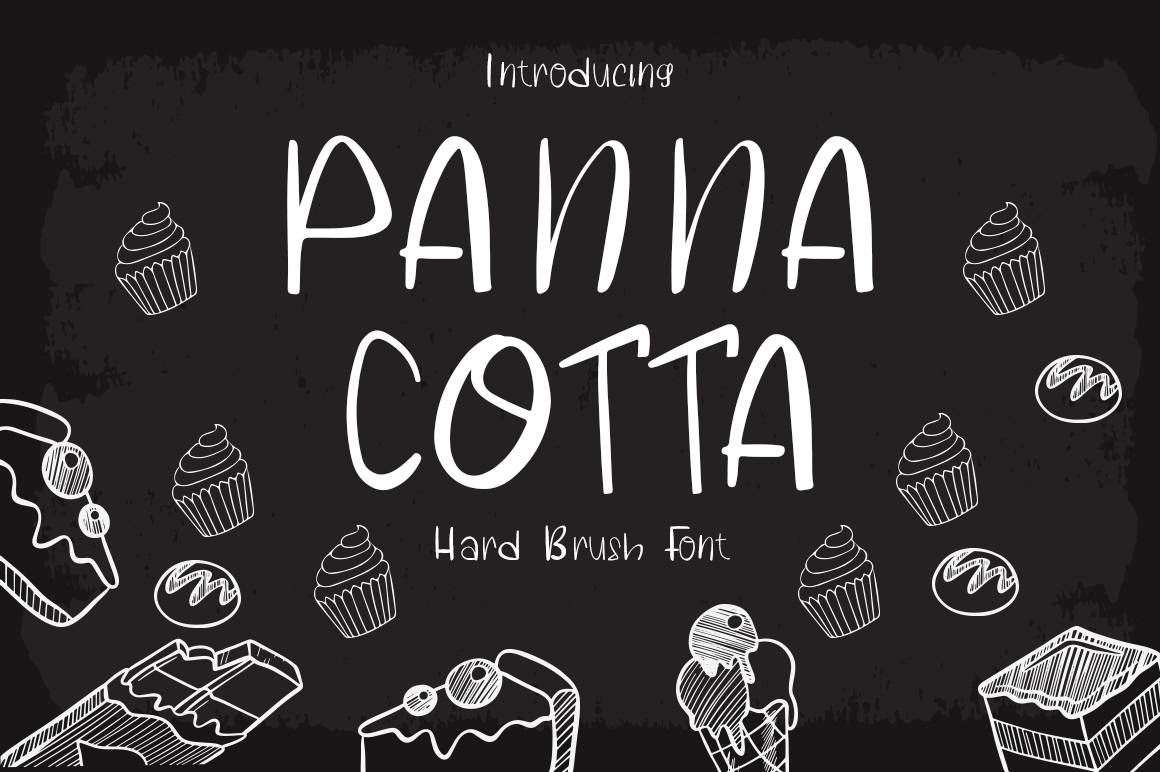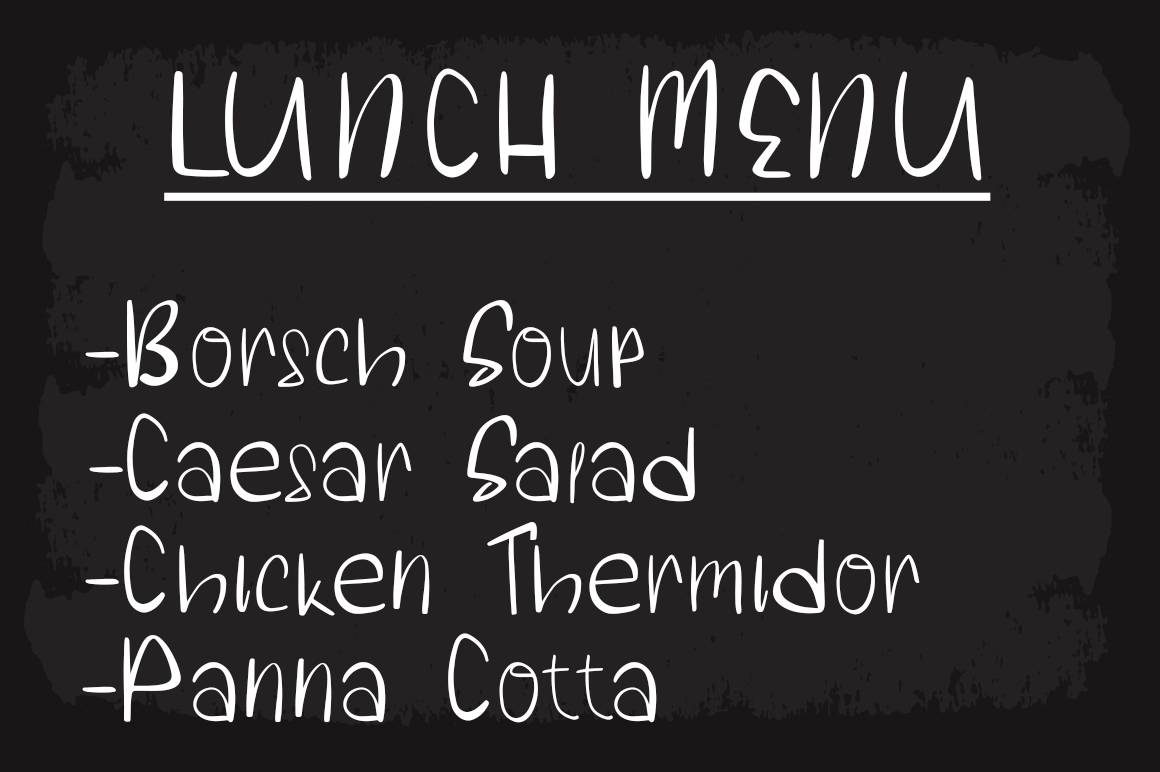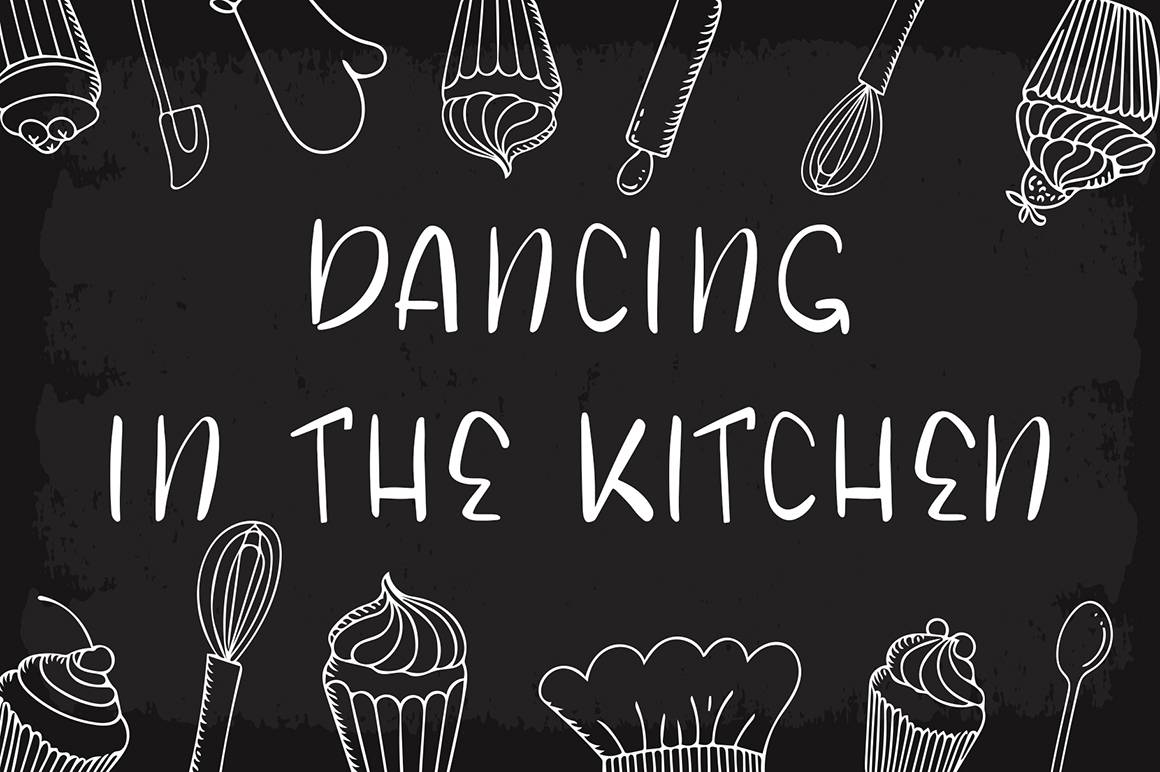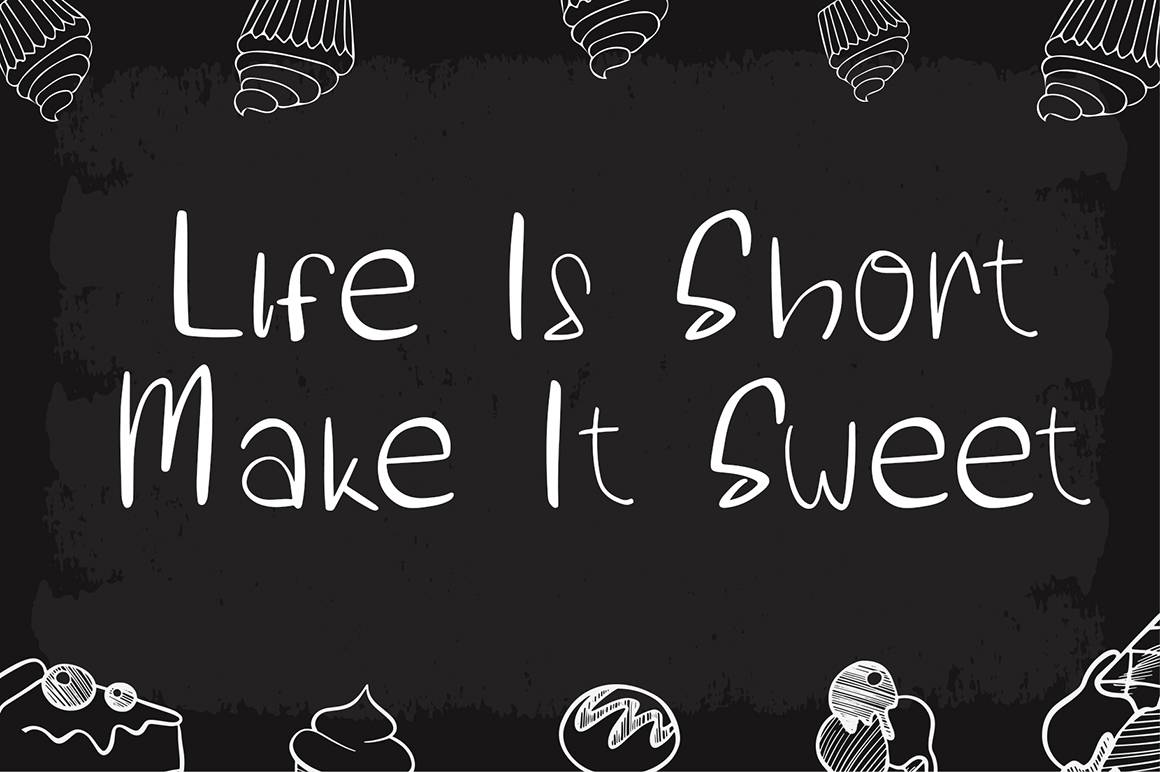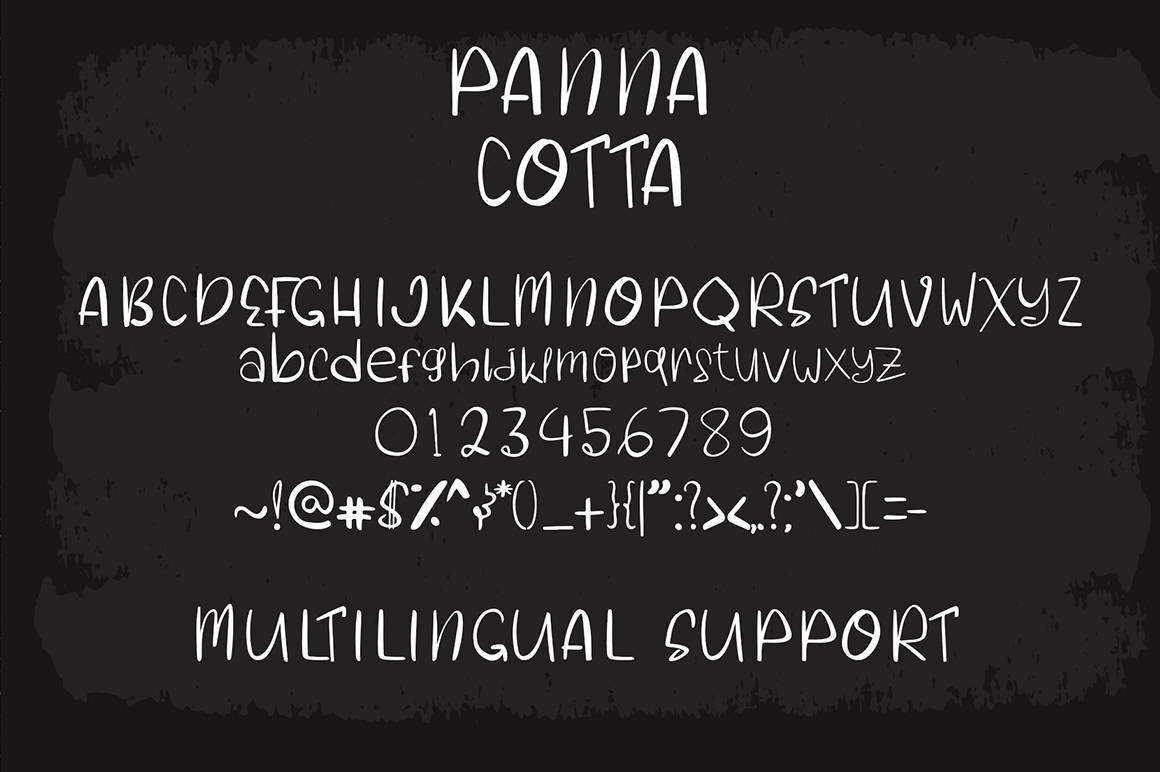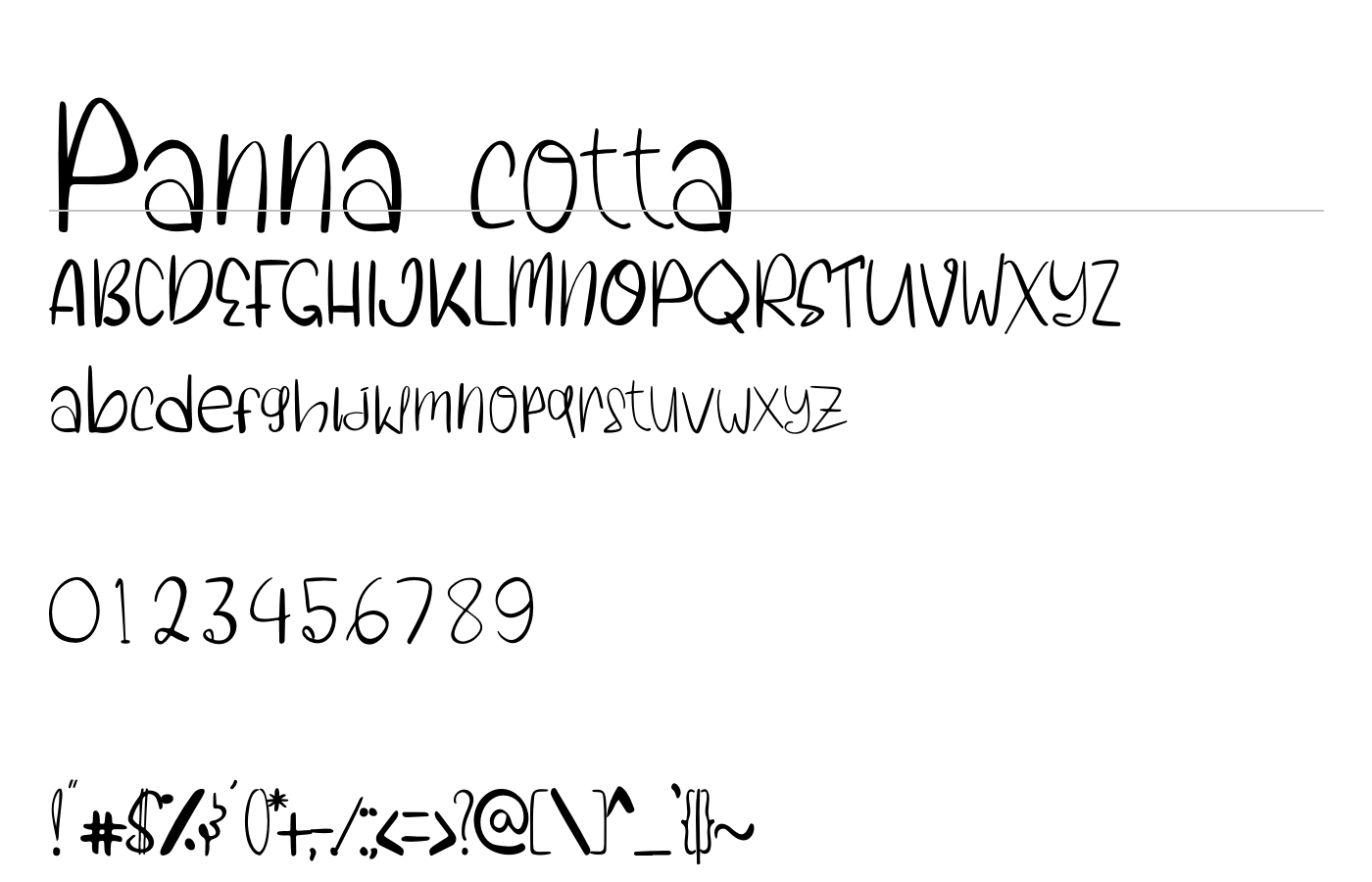
Panna Cotta is a playful, thin, sans serif font with a hand-drawn feel and a casual personality. Its tall, narrow letterforms and quirky shapes make it perfect for fun, friendly branding, creative projects, and informal headlines where a warm, approachable style is needed. This font works well for children's books, invitations, social media graphics, and other designs that benefit from a lighthearted, whimsical touch.
| Font family | Panna Cotta Font |
| Release date | 2020-07-31 |
| Designer | Fajar Wicaksono |